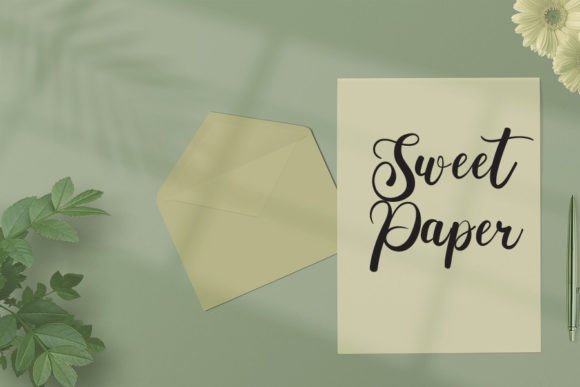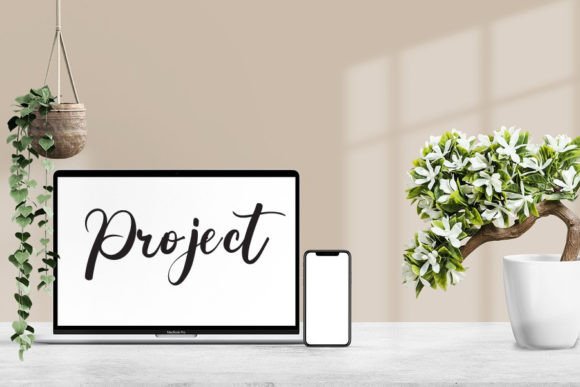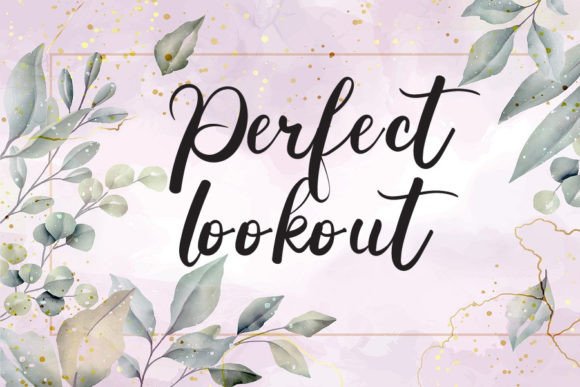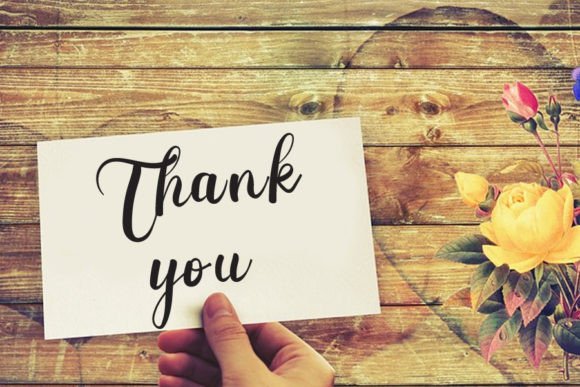
Always Better Font
About Always Better Font
“Always Better” is a contemporary and visually appealing handwritten font that adds a touch of freshness and beauty to a variety of design applications. Its versatility makes it an excellent choice for a wide range of creative projects, allowing you to enhance your visuals with a modern and charming aesthetic.
For digital content creators, “Always Better” is a standout option. It’s perfectly suited for YouTube banners and covers, helping to capture viewers’ attention with its eye-catching and stylish script. Whether used in logos or mockups, this font can give your branding a unique and contemporary identity, helping your business stand out in a competitive market.
When it comes to special occasions like weddings, “Always Better” can add an elegant and personal touch to invitations and ID cards. Its handwritten style imparts a sense of warmth and charm to these essential elements, making them even more memorable and meaningful. For event promotion, such as flyers, this font can create a visually appealing and engaging design that attracts attendees.
In the realm of crafts and DIY projects, “Always Better” provides a modern and trendy option for adding text and captions to your creations. Its versatility and aesthetic appeal make it a great choice for adding that finishing touch to your handmade items.
The font’s ability to adapt to various design contexts, from digital to print, makes it a valuable asset for businesses and individuals alike. Its fresh and beautiful appearance can help enhance your visual identity and leave a positive impression on your audience.
In summary, “Always Better” is not just a font; it’s a contemporary and charming tool that can elevate a wide range of design projects. Its ability to seamlessly blend modern aesthetics with versatility makes it a valuable resource for designers and content creators looking to enhance their visuals. Whether you’re working on digital content, branding, invitations, or crafts, “Always Better” can contribute to a fresh and stylish look that can help your business progress and thrive.